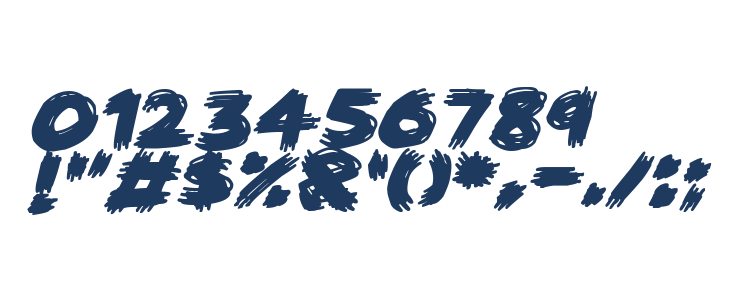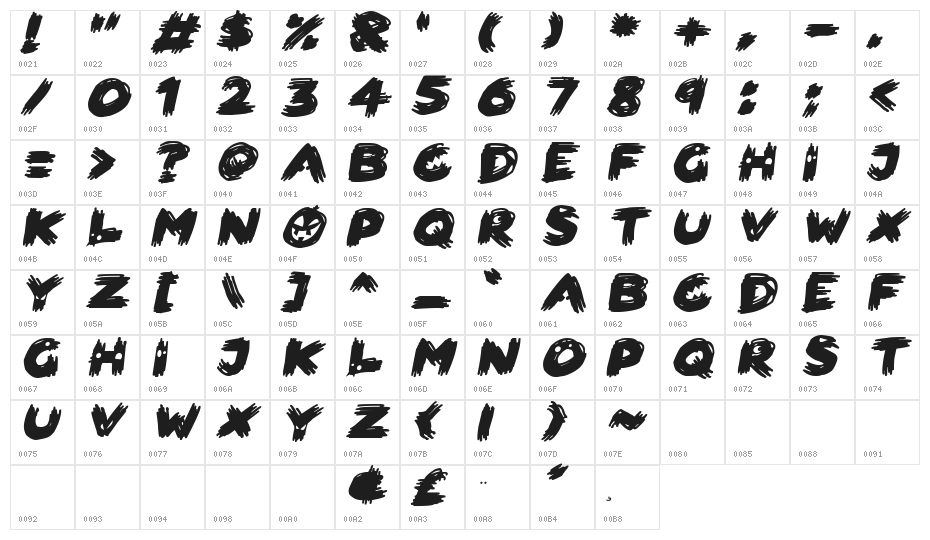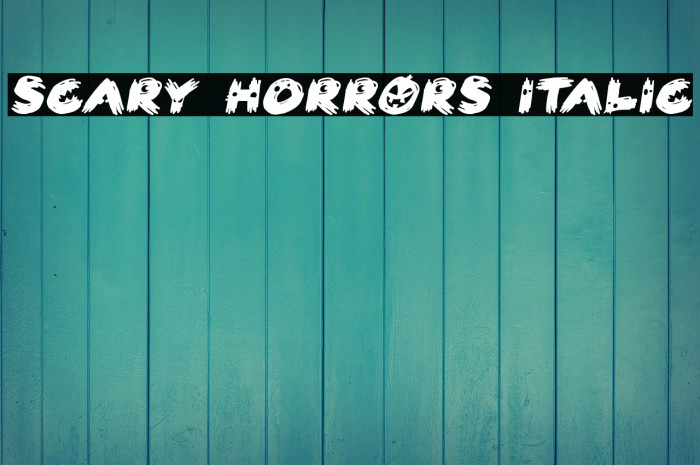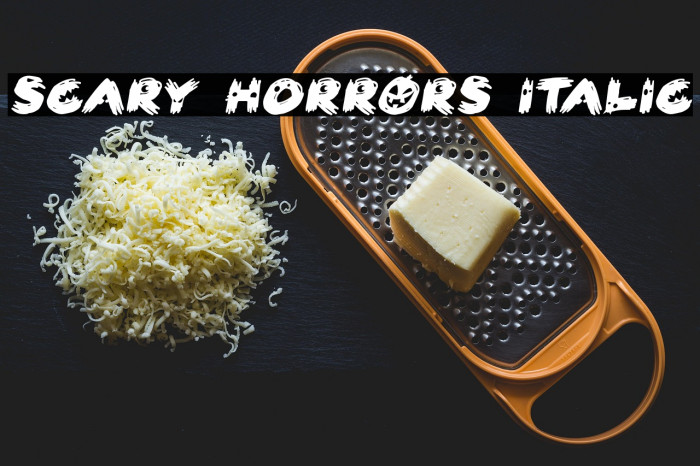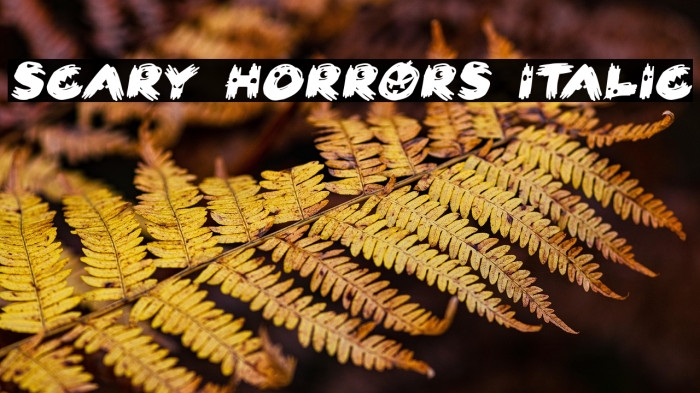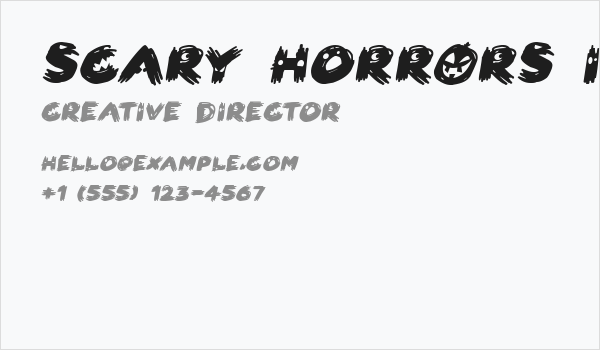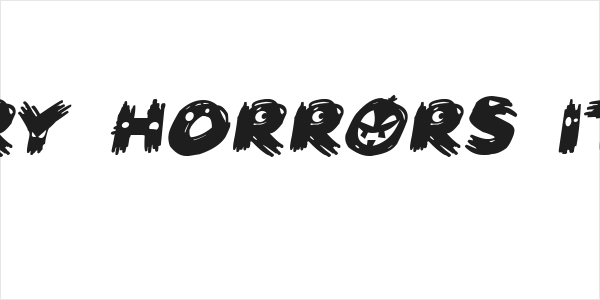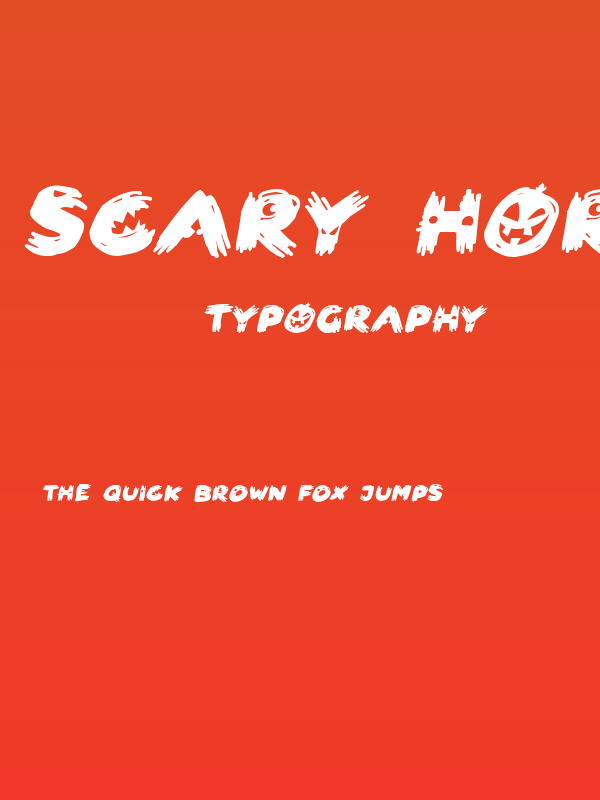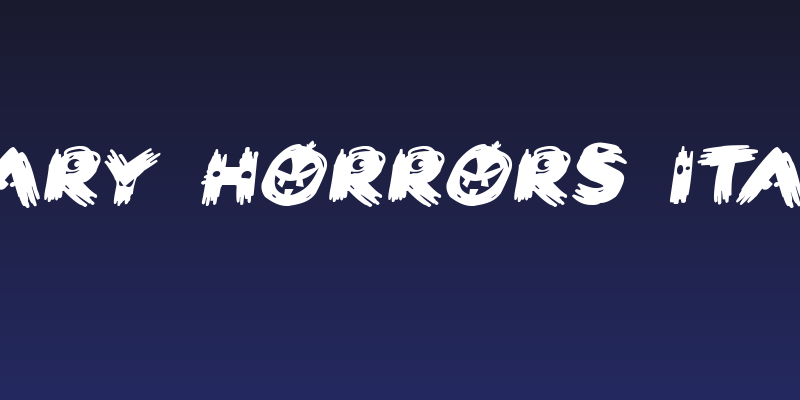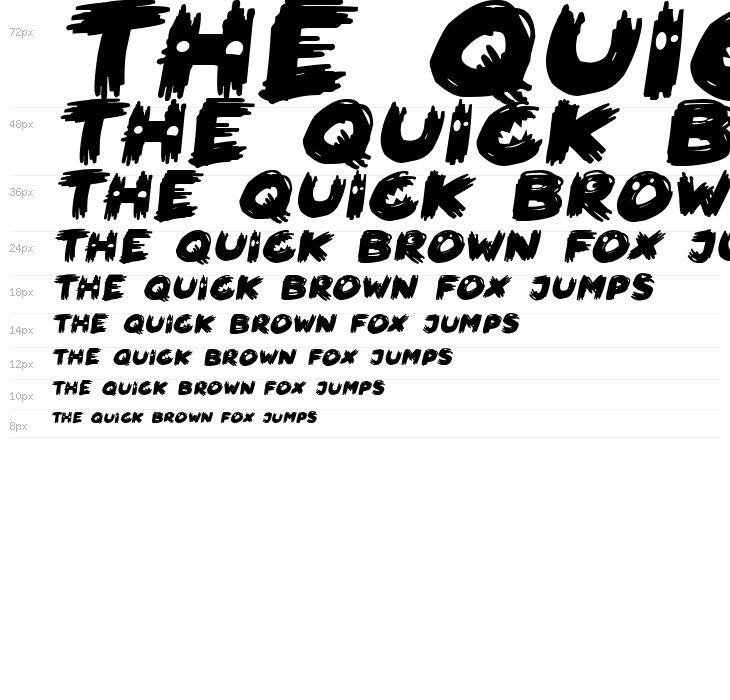
Scary HorrOrs Italic Font
Scary HorrOrs Italic Description
This font exudes a chilling and eerie vibe, perfect for horror-themed projects. The letters are designed with jagged, uneven strokes that mimic the appearance of being scratched or torn, adding to the unsettling aesthetic. The uppercase and lowercase letters maintain a consistent style, with each character appearing as if it has been hastily carved. The numbers and special characters follow the same design principles, ensuring a cohesive look across all text elements. This font's unique style makes it ideal for creating a sense of suspense and fear.
| Proposed Projects | Ideal for Halloween posters, horror movie titles, haunted house flyers, and spooky event invitations. |